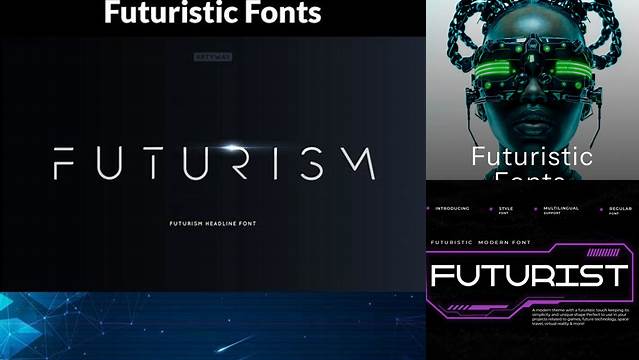
Top Free Futuristic Fonts For Modern Design
Hey everyone! Are you looking to add a touch of the future to your designs? Then you've come to the right place! In this article, we're diving deep into the world of futuristic fonts, exploring the best free options available that can give your projects a sleek, modern, and cutting-edge feel. Whether you're designing a website, creating a logo, or working on a sci-fi-themed poster, the right font can make all the difference. So, let's jump into it and discover some amazing typefaces!
What Makes a Font Futuristic?
Before we dive into the list, let's quickly talk about what exactly makes a font feel futuristic. Futuristic fonts often incorporate elements like sharp angles, clean lines, and geometric shapes. They might also have a minimalist design or incorporate unconventional letterforms that break away from traditional typography. Think about the fonts you've seen in sci-fi movies or video games – those are the kinds of vibes we're going for!
When choosing a futuristic font, consider the overall tone and message of your project. Do you want something sleek and sophisticated, or something more edgy and tech-inspired? The right font should not only look cool but also complement the content it's paired with. A well-chosen typeface can significantly enhance the visual appeal and readability of your design, making it more engaging and professional.
Furthermore, the best futuristic fonts often play with negative space and unconventional letter structures. This can involve disconnected strokes, fragmented forms, or glyphs that appear almost abstract. The goal is to create a sense of forward-thinking innovation, evoking images of advanced technology and sleek, streamlined design. These fonts can range from minimalist and elegant to bold and assertive, offering a wide spectrum of possibilities for creative expression.
In addition to aesthetics, the functionality of a futuristic font is also crucial. A great futuristic font should be legible across various sizes and mediums, from large headlines to smaller body text. It should also include a comprehensive character set, supporting various languages and symbols. This ensures that the font can be used effectively in a wide range of projects, from web design to print media. Ultimately, the best futuristic fonts blend cutting-edge style with practical usability, making them a valuable asset for any designer looking to add a modern flair to their work.
Top Free Futuristic Fonts
Okay, let's get to the good stuff! Here's a rundown of some of the best free futuristic fonts you can use in your projects:
1. Neuropolitical
Neuropolitical is a fantastic futuristic font that screams high-tech. Its sharp, angular design makes it perfect for headlines, logos, and anything that needs a strong, modern touch. This font features clean lines and a slightly condensed form, giving it a sleek and efficient appearance. Neuropolitical is particularly well-suited for projects related to technology, science, and innovation. Think website headers for tech startups, titles for sci-fi book covers, or branding for cutting-edge gadgets.
The geometric precision of Neuropolitical lends itself well to designs that aim to convey a sense of sophistication and forward-thinking. The sharp angles and clean curves create a visual rhythm that is both striking and legible. This font’s versatility extends to both print and digital media, making it a reliable choice for a variety of design applications. Its robust character set includes uppercase and lowercase letters, numerals, and a selection of punctuation marks, ensuring that you have the necessary tools to express your ideas effectively. Moreover, the slightly condensed form factor allows you to fit more text into a given space without sacrificing readability, which is particularly useful in tight layouts or responsive designs.
Beyond its technical attributes, Neuropolitical’s aesthetic impact is undeniable. It evokes a sense of technological advancement and streamlined efficiency, making it an excellent choice for any project that seeks to project a modern and innovative image. Whether you are designing a futuristic video game interface, a sleek corporate presentation, or a cutting-edge marketing campaign, Neuropolitical can help you achieve a professional and visually compelling result. Its commanding presence ensures that your message is delivered with clarity and impact, making it a go-to font for designers who want to make a bold statement.
2. Exo
Exo is a geometric sans-serif font that's both modern and elegant. It has a slightly rounded feel, which softens the sharp edges often found in futuristic fonts, making it versatile enough for both headlines and body text. This font family includes multiple weights, providing you with flexibility in your designs. Exo's blend of curved and straight lines gives it a balanced and harmonious appearance, making it a comfortable choice for extended reading as well as impactful display purposes. It's particularly effective in projects that aim to convey both technological innovation and a sense of approachability.
The variety of weights within the Exo family allows for nuanced typographic hierarchies, enabling you to create visually dynamic layouts that maintain a cohesive aesthetic. Light weights can be used for elegant and airy designs, while bolder weights command attention and convey a sense of authority. This versatility makes Exo suitable for a wide range of applications, from website design and branding to print materials and digital publications. Its clean and uncluttered letterforms ensure optimal legibility across different media and screen sizes, making it a reliable choice for responsive design.
Furthermore, Exo's open and inviting character makes it an excellent option for projects that require a human touch in addition to a futuristic vibe. It strikes a balance between technical precision and organic flow, making it suitable for industries ranging from technology and engineering to design and creative arts. Whether you're crafting a landing page for a SaaS product, designing a user interface for a mobile app, or creating a presentation for a forward-thinking company, Exo can help you communicate your message with both clarity and style. Its modern aesthetic ensures that your design feels current and innovative, while its subtle curves and balanced proportions prevent it from feeling overly sterile or impersonal.
3. Nasalization
Nasalization is a classic futuristic font that's inspired by the NASA logo. It's bold, geometric, and perfect for creating a sense of technological advancement. If you're working on a project that needs to feel like it's straight out of a sci-fi movie, Nasalization is a fantastic choice. Its strong, uppercase letterforms exude confidence and precision, making it ideal for headlines, logos, and other display elements. The font’s distinctive style is instantly recognizable and conveys a sense of space-age innovation and engineering prowess.
The geometric construction of Nasalization ensures clarity and impact, making it an excellent choice for designs that need to grab attention. Its clean lines and consistent stroke weight create a visually striking appearance, while its condensed form allows you to fit more text into a given space. This is particularly useful in applications such as website headers, posters, and advertising materials, where space is often at a premium. Nasalization’s bold presence commands attention without sacrificing legibility, making it a versatile tool for creating memorable and effective designs.
Beyond its visual attributes, Nasalization’s association with NASA lends it an air of credibility and authority. It evokes a sense of technological expertise and scientific advancement, making it an ideal choice for projects related to aerospace, engineering, and other STEM fields. Whether you’re designing a website for a tech startup, creating branding materials for a research institution, or developing a marketing campaign for a futuristic product, Nasalization can help you convey a sense of innovation and reliability. Its timeless appeal ensures that your design will feel both contemporary and classic, making it a valuable asset for any project that aims to project a cutting-edge image.
4. Orbitron
Orbitron is a geometric sans-serif font designed for display purposes. It has a unique, almost mechanical feel, with sharp angles and clean lines. This font is perfect for headlines and titles, especially in projects related to technology and science fiction. Orbitron's bold and distinctive style makes it stand out, ensuring that your message is conveyed with impact and clarity. The font's futuristic aesthetic is further enhanced by its squared-off terminals and precisely crafted letterforms, giving it a sense of technological precision and forward-thinking design.
The robust character of Orbitron makes it particularly well-suited for applications where a strong visual statement is required. Its sharp lines and geometric shapes command attention, making it an ideal choice for headlines, logos, and other display elements. Whether you’re designing a website, creating a poster, or developing a branding campaign, Orbitron can help you capture the viewer’s attention and communicate your message effectively. The font’s distinctive style ensures that your design will stand out from the crowd, while its clean lines and consistent stroke weight maintain legibility and readability.
In addition to its visual appeal, Orbitron’s futuristic aesthetic aligns well with themes of technology, innovation, and science fiction. It evokes a sense of space-age design and advanced engineering, making it an excellent choice for projects related to these fields. Whether you’re designing a user interface for a futuristic video game, creating a website for a tech startup, or developing marketing materials for a cutting-edge product, Orbitron can help you convey a sense of innovation and forward-thinking. Its unique blend of boldness and precision makes it a versatile tool for any designer looking to add a touch of the future to their work.
5. Rajdhani
Rajdhani is a modern sans-serif font with a slightly futuristic vibe. It's clean and legible, making it a great option for both headlines and body text. Rajdhani's rounded terminals and balanced proportions give it a friendly and approachable feel, while its geometric structure adds a touch of modernity. This font family includes several weights, providing you with the flexibility to create diverse typographic hierarchies within your designs. Rajdhani is particularly well-suited for projects that aim to convey a sense of both technological innovation and human connection.
The versatility of Rajdhani makes it an excellent choice for a wide range of applications, from website design and branding to print materials and digital publications. Its clean and uncluttered letterforms ensure optimal legibility across different media and screen sizes, making it a reliable choice for responsive design. The variety of weights within the Rajdhani family allows for nuanced typographic expression, enabling you to create visually dynamic layouts that maintain a cohesive aesthetic. Light weights can be used for elegant and airy designs, while bolder weights command attention and convey a sense of authority.
Furthermore, Rajdhani’s balanced character makes it an excellent option for projects that require a blend of modern style and readability. It strikes a harmonious balance between geometric precision and organic flow, making it suitable for industries ranging from technology and engineering to design and creative arts. Whether you're crafting a landing page for a SaaS product, designing a user interface for a mobile app, or creating a presentation for a forward-thinking company, Rajdhani can help you communicate your message with both clarity and style. Its modern aesthetic ensures that your design feels current and innovative, while its subtle curves and balanced proportions prevent it from feeling overly sterile or impersonal.
Tips for Using Futuristic Fonts
Now that we've covered some great free futuristic fonts, let's talk about how to use them effectively:
- Use Sparingly: Futuristic fonts can be very impactful, so it's best not to overuse them. Stick to using them for headlines, titles, or logos, and pair them with a more neutral font for body text.
- Consider Legibility: While a font might look cool, it's important to make sure it's still legible, especially for longer blocks of text. Choose fonts that maintain readability across different sizes and mediums.
- Match the Tone: Make sure the font aligns with the overall tone and message of your project. A sleek, minimalist font might be perfect for a tech company, while a bolder, more geometric font could be great for a sci-fi video game.
- Pairing is Key: Experiment with different font pairings to find combinations that work well together. A futuristic font can look fantastic paired with a classic sans-serif or even a subtle serif font.
Choosing the right font can really elevate your design, and these free futuristic fonts are a great place to start. Have fun experimenting and creating something amazing!
So there you have it, guys! A rundown of some of the best free futuristic fonts out there. I hope this article has given you some inspiration and helped you find the perfect typeface for your next project. Remember, the right font can make all the difference in conveying the message and mood you're aiming for. Whether you're designing a cutting-edge website, a futuristic logo, or anything in between, these fonts are sure to add a touch of the future to your work.
Experiment with these fonts, play around with different pairings, and most importantly, have fun with it! The world of typography is vast and exciting, and there's always something new to discover. Keep exploring, keep creating, and keep pushing the boundaries of design. And don't forget to share your creations – I'd love to see what you come up with!